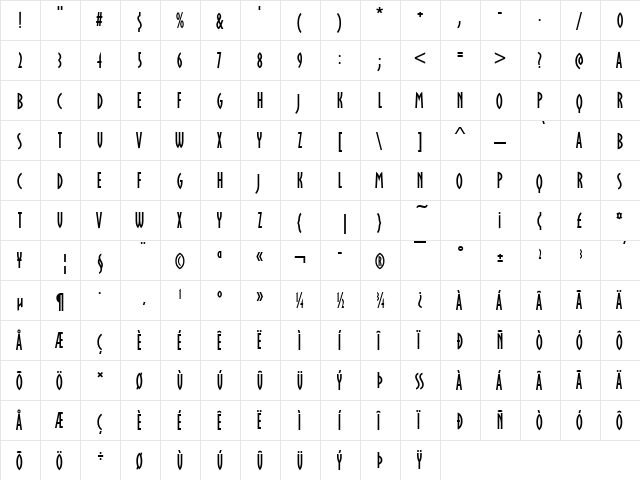
URWOklahomaD Regular
Design Context for URWOklahomaD Typeface
URWOklahomaD offers clean, dependable letterforms without strong stylistic allegiance, making it a practical choice for designers who need flexibility.